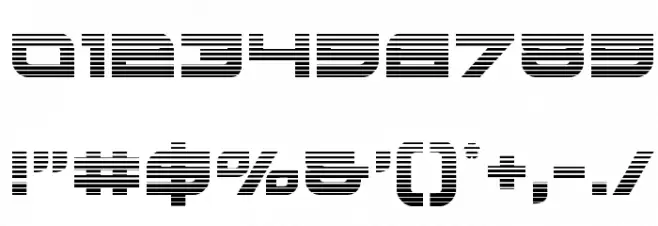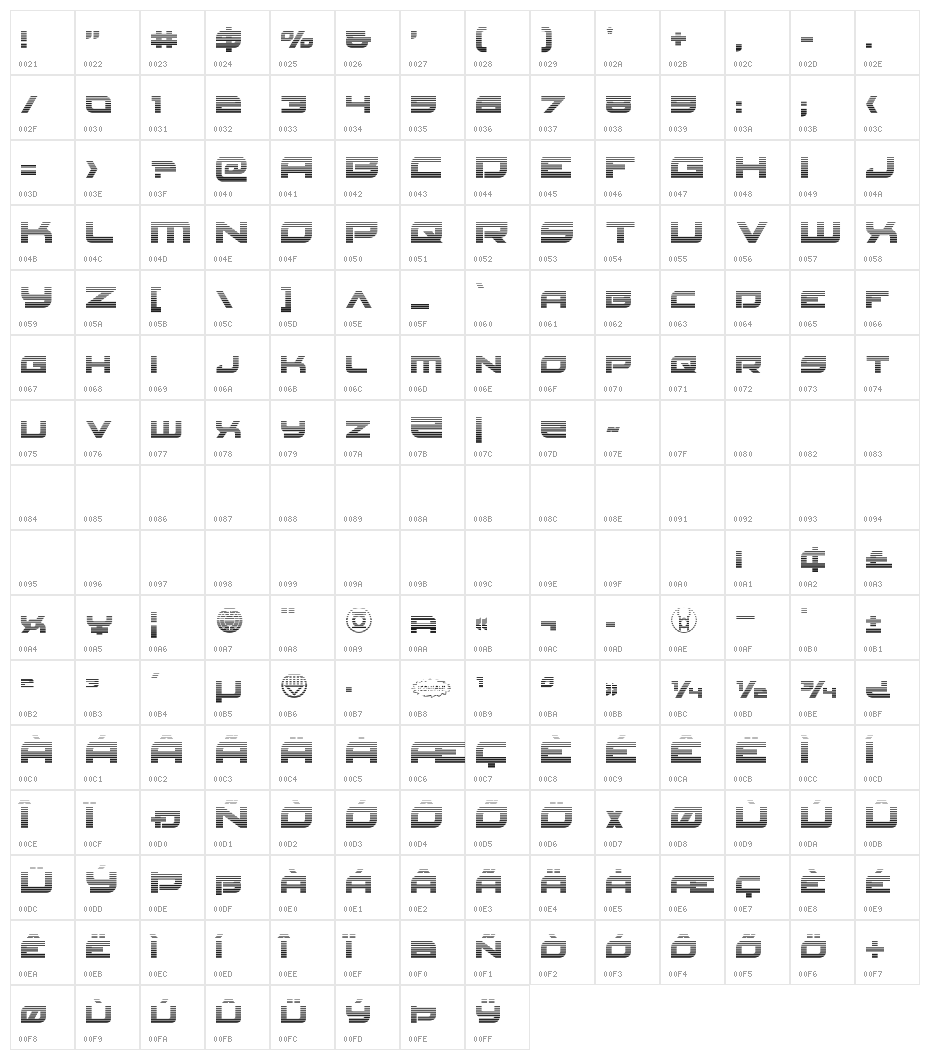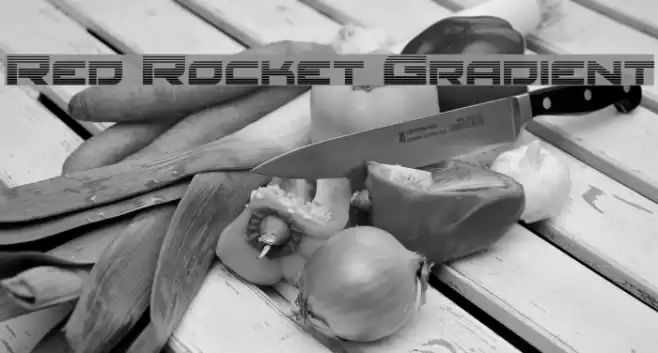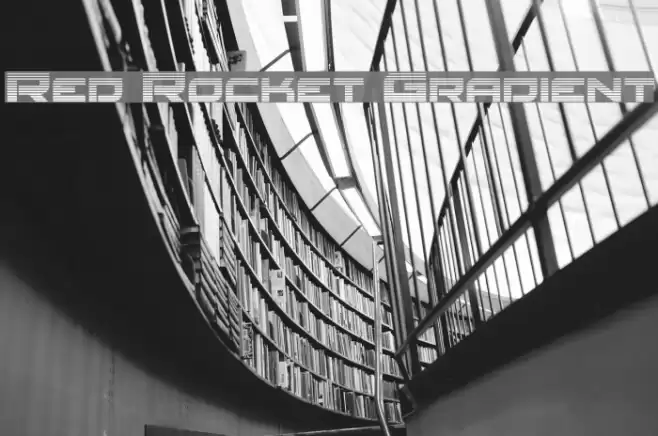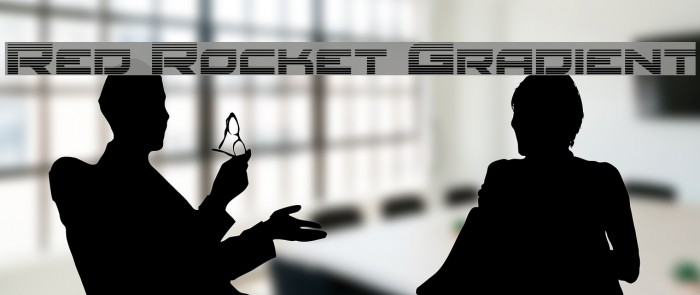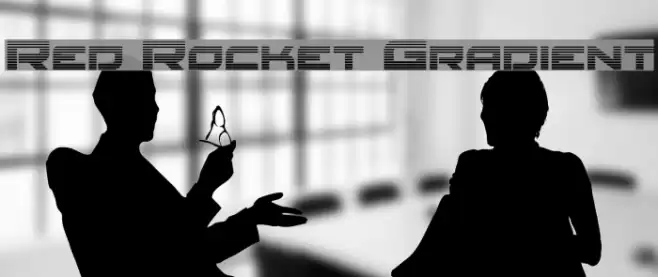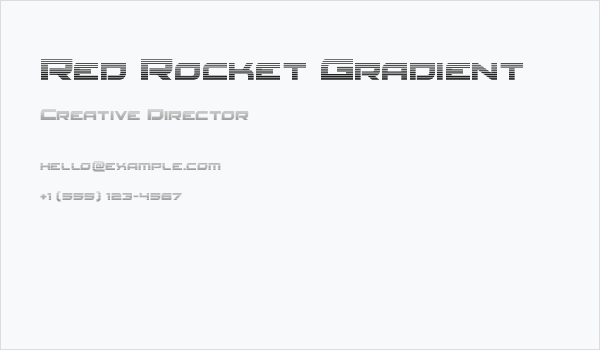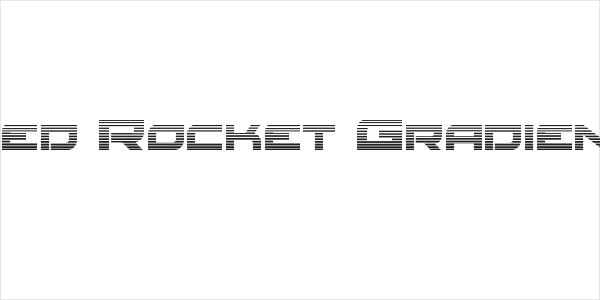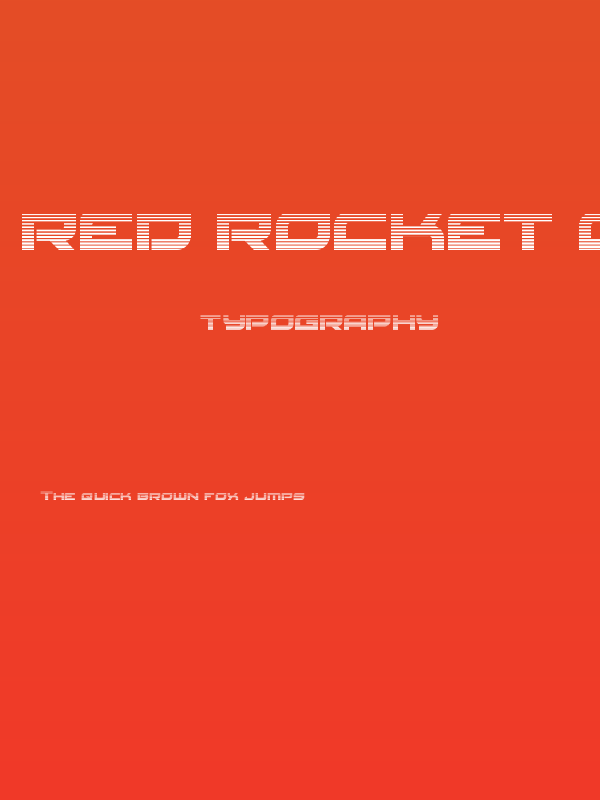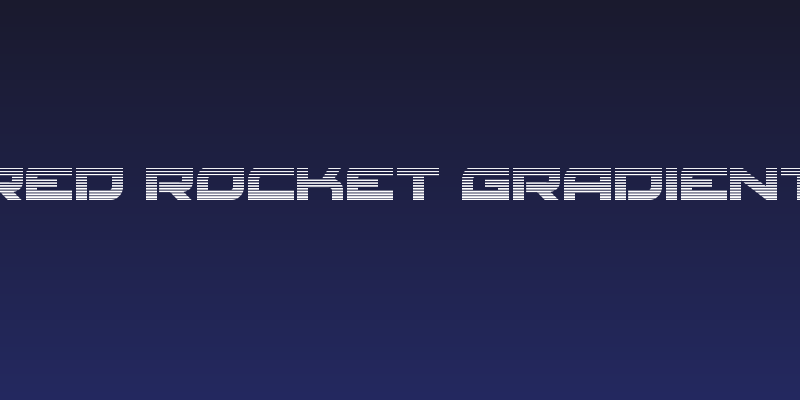
Red Rocket Gradient Font
Red Rocket Gradient Description
This font features a futuristic and dynamic design with a distinct striped pattern running horizontally across each character. The uppercase and lowercase letters, along with numbers and special characters, are constructed with bold, geometric shapes that convey a sense of speed and modernity. The lines within each character create a sense of movement and energy, making it ideal for projects that require a bold and eye-catching typeface. The font's unique style is reminiscent of digital displays or racing themes, adding a technological edge to any design.
| Proposed Projects | Ideal for technology branding, sports team logos, video game titles, and futuristic-themed posters. |